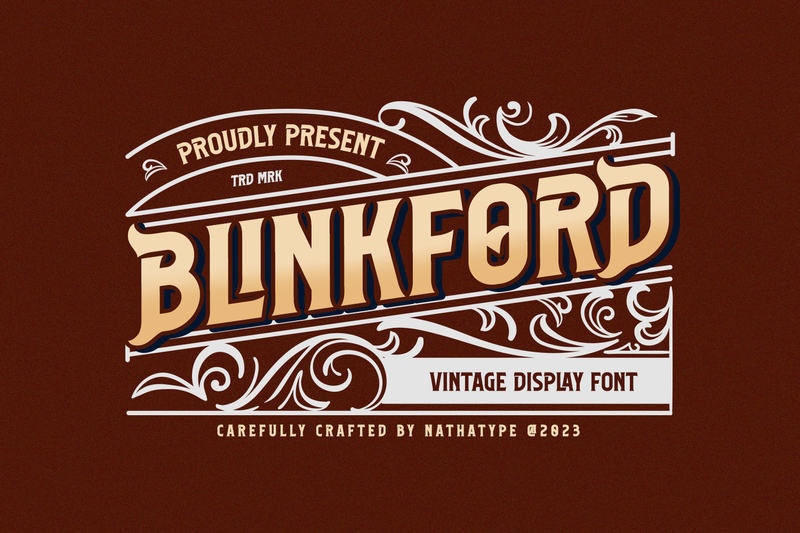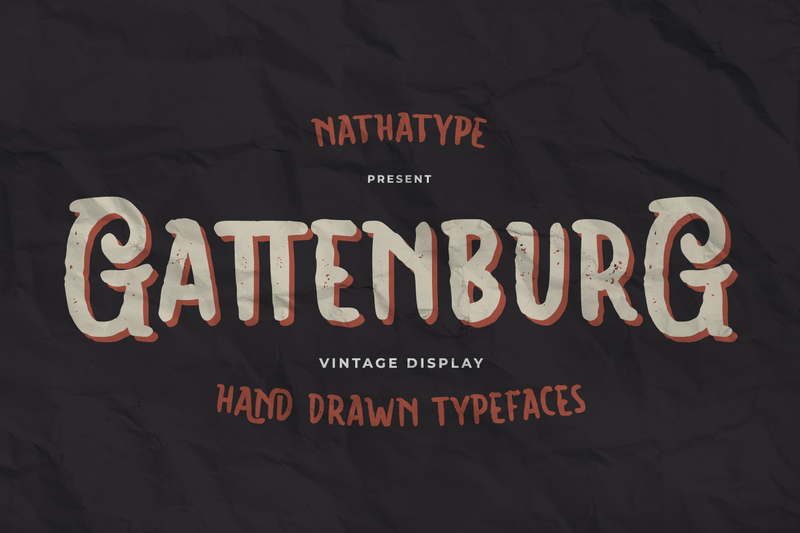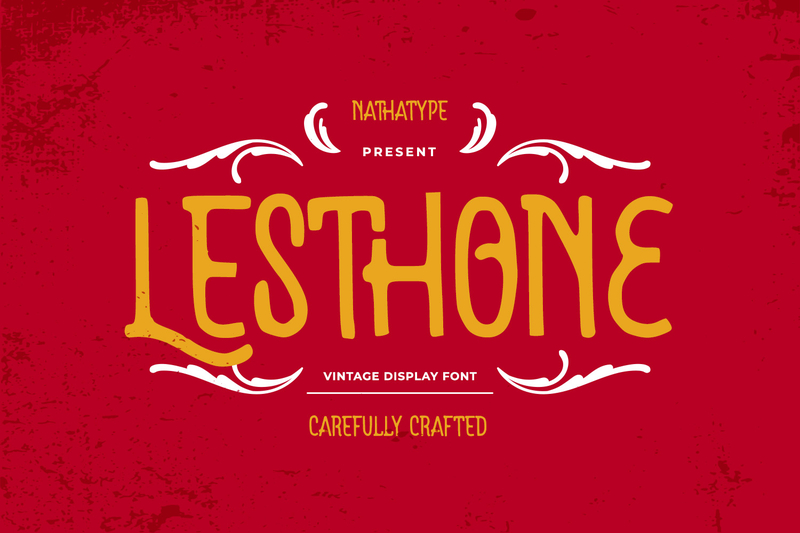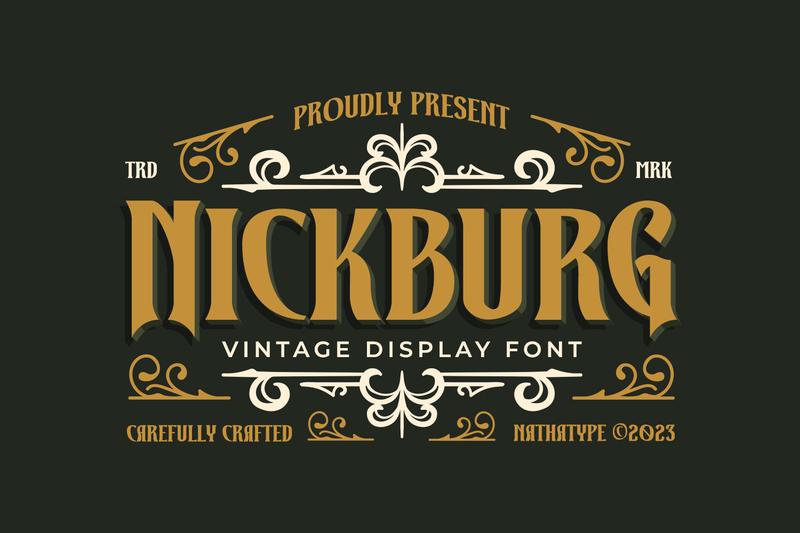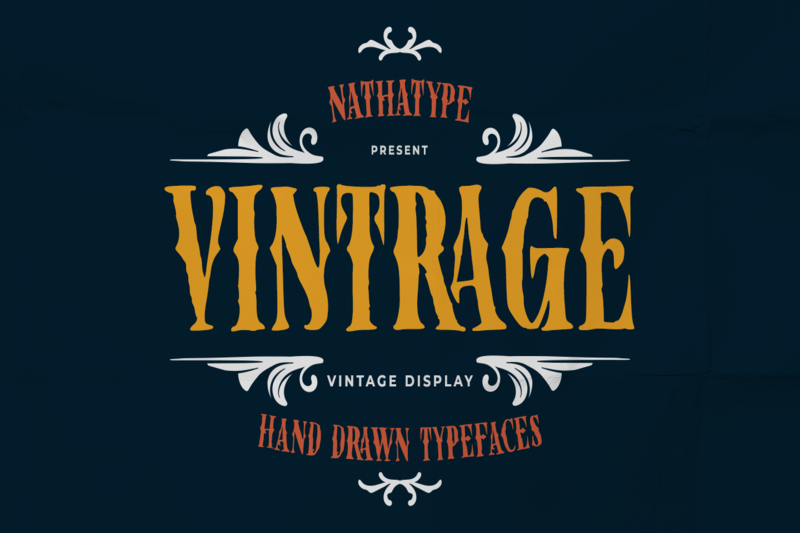
10 Vintage Font Styles to Elevate Your Graphic Designs
In the ever-changing world of graphic design, typography plays a crucial role in establishing a powerful and memorable visual identity. The vintage font style stands out as one of the most popular. Renowned for their timeless charm and inviting aesthetic, vintage font styles provide an authentic and impactful visual appearance.
Not only for bygone-themed design projects, vintage font styles are also good for modern designs with an artistic and emotional look. If you want classic letterings that are still relevant, you’re in the right place.
Vintage font styles have the power to elevate your visual message in a unique and striking manner. Whether it’s logos, posters, or packaging designs, vintage font styles are undeniably a top choice. This style is increasingly gaining popularity as it seamlessly blends nostalgia with captivating modern aesthetics.
In this article, we will provide you with 10 vintage font styles that are worth exploring and can serve as valuable additions to your typography collection. From sturdy fonts like Bigtrack to timeless appearances like Vintrage, you can find the most suitable fonts and bring your design to the next level.
Bigtrack
First on the list is Bigtrack. This font combines classic essence with a touch of elegant modern. With thick and solid capital letters, Bigtrack features a professional and charming look in each of its strokes. Furthermore, the proportional kerning of this font makes it readily legible and ideal for many design needs, including headlines, logos, and signage.
Bigtrack has a complete set of Latin basics and even features additional supports like multilanguage, stylistic alternates, and even ligatures. This font is suitable for large-scale design projects needing strong and solid vintage font styles.
Blinkford
Up next is Blinkford. Blinkford embodies the charm of vintage font styles, featuring smooth curves that remind you of the iconic 1950s era. This font combines solid elegance with timeless charm, enhancing your projects while ensuring comfortable readability through its thoughtful letter spacing.
Furthermore, Blinkford is complete with ornaments and some other additional features, including multilingual support, ligatures, and stylistic sets. It is ideal for packaging, retro posters, and more.
Collider
Next up, we have Collider. This font combines vintage charm with a sleek, modern style. The design offers a sleek, minimalist aesthetic, infused with contemporary geometric styles. The font showcases a capital format, delivering a solid, timeless, and smooth appearance in any design.
Additionally, the letter’s design boasts a symmetrical and well-structured layout, enhancing its visual balance significantly.  Collider, featuring its alternates, ligatures, and stylistic sets, is perfect for various design applications, such as posters, album covers, and more.
Gattenburg
Gattenburg brings a warm and friendly rustic vibe. With its rough texture and irregular letter shapes, this font creates a natural and personal impression. Moreover, the smooth curves and simple lines make its appearance feel closer to the touch of human handwriting in the Vintage Font style.
Gattenburg features alternates, ligatures, and bonus ornaments that enrich the possibilities for design exploration. These features are ideal for flyer designs, handmade product packaging, or any printed media that seeks to stand out with vintage font styles.
Grilock
Grilock presents an intriguing combination of vintage font styles and modern visuals. Its design, filled with sharp angles and contrasting stroke/letter thickness, creates a bold and striking appearance.
This font has additional ornaments and typographic features such as ligatures and multilingual support. Therefore, it is perfect for headlines, signage, and branding that want to appear confident and memorable with a vintage font style.
Krellon
Krellon evokes a sense of nostalgia from a bygone era with its classic, rounded capital letterings. The smooth texture effect enhances visual depth in a design, positioning it as an excellent choice among vintage font styles.
Furthermore, Krellon offers various decorative ornaments and impressive features, including alternates and ligatures. This font is perfect for eye-catching titles, nostalgic posters, and timeless packaging designs.
Lesthone
And then we have Lesthone. Lesthone is a vintage font characterized by strokes without contrast and minimalism. This gives Lesthone a simple appearance while still maintaining a strong character. Another characteristic is that the letter spacing has been professionally adjusted to ensure readability and an aesthetic appearance.